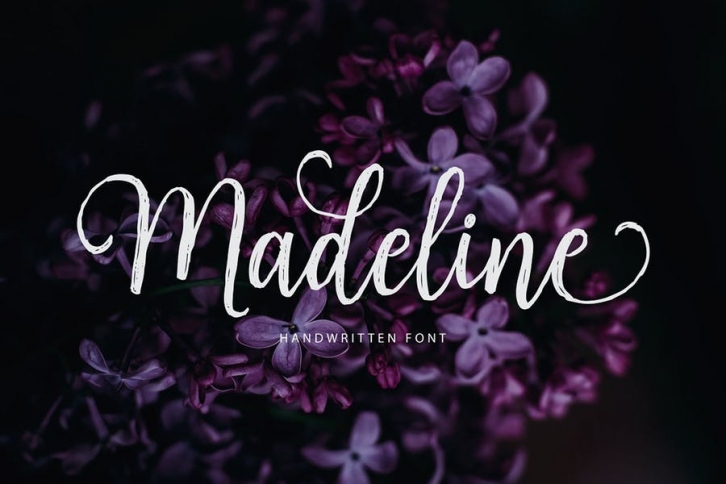
Madeline Script is a new fresh & natural script font with a handwritten style. This font comes to give a new sensation and natural feel for the designer or craftsman in working on various projects, So Perfect and beautiful on invitation like greeting cards, branding materials, business cards, quotes, posters, Logos, Greeting Cards, Wedding Stationery, and more!
Madeline Script come with 295 glyphs totaly. The alternative characters were divided into Several Open Type features such as Swash, Stylistic Sets, Stylistic Alternates, Contextual Alternates, and ligature. The Open Type features can be accessed by using Open Type savvy programs such as Adobe Illustrator, Adobe InDesign, Adobe Photoshop Corel Draw X version, And Microsoft Word. And this has given PUA Unicode Font (specially coded fonts). so that all the alternates characters Easily can be accessed in full by a craftsman or designer